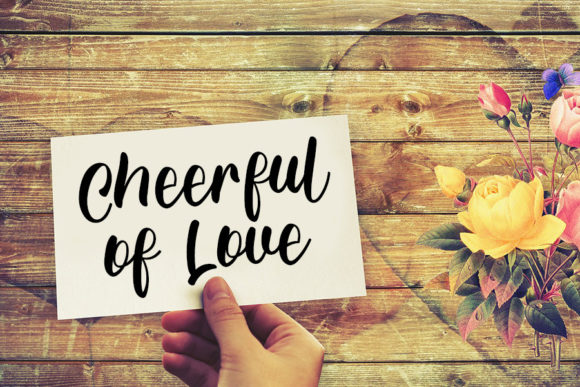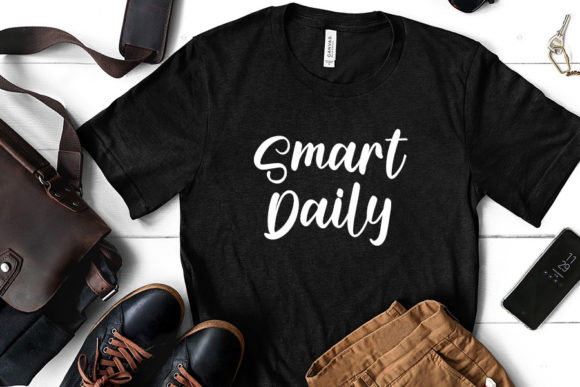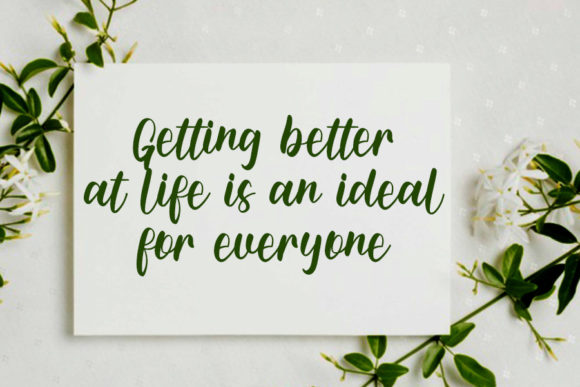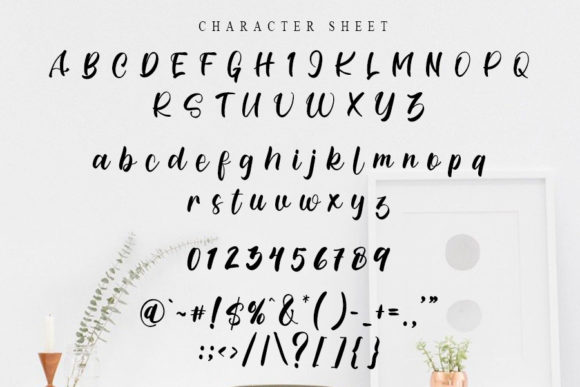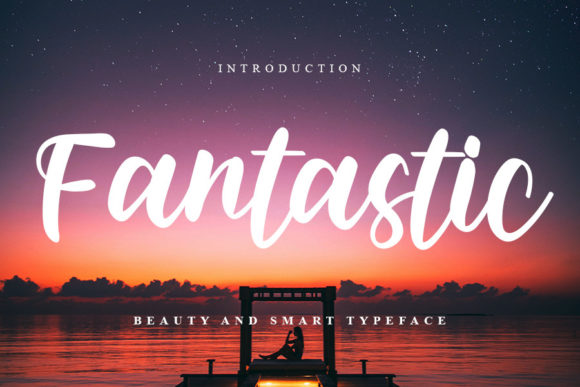
Fantastic Font: Elevate Your Designs with this Stunning Cursive Script
Are you tired of using the same old fonts in your designs? Look no further! Introducing the Fantastic Font, a beautiful cursive script font that is sure to take your creations to the next level. With its unique and well-balanced letters, this font is a masterpiece that will make your designs stand out from the crowd.
What Makes Fantastic Font So Special?
Fantastic Font is a cursive script font that boasts a distinct and well-balanced style. Its letters are carefully crafted to create a sense of fluidity and harmony, making it perfect for a wide range of design applications. Whether you’re creating a logo, brochure, or social media graphic, this font is sure to impress.
One of the key features that sets Fantastic Font apart is its versatility. Its incredibly versatile style allows it to be used in a variety of contexts, from formal and elegant to playful and whimsical. This font is perfect for designers and crafters who want to add a touch of personality to their work.
The Benefits of Using Fantastic Font
So why choose Fantastic Font for your next design project? Here are just a few benefits of using this amazing font:
- Unique and Memorable: Fantastic Font’s distinct letters make it a standout from more traditional fonts. Use it to create designs that are truly unforgettable.
- Versatile: Whether you’re creating a formal or informal design, Fantastic Font is the perfect choice. Its versatile style allows it to be used in a wide range of contexts.
- Elegant and Sophisticated: Fantastic Font’s cursive script style gives it an air of elegance and sophistication. Use it to create designs that exude refinement and poise.
- Easy to Read: Despite its ornate style, Fantastic Font is incredibly easy to read. This makes it perfect for designs that require a clear and concise message.
How to Use Fantastic Font in Your Designs
Ready to start using Fantastic Font in your designs? Here are a few tips to get you started:
- Pair it with a Sans-Serif Font: For a classic look, pair Fantastic Font with a sans-serif font like Arial or Helvetica. This will create a beautiful contrast between the ornate script font and the clean sans-serif font.
- Use it as a Title Font: Fantastic Font is perfect for use as a title font. Its bold and ornate style makes it perfect for headings and titles.
- Add some Flair: Don’t be afraid to add some flair to your designs with Fantastic Font. Use it to create decorative elements, such as swashes and flourishes, to add visual interest to your designs.
Who is Fantastic Font For?
Fantastic Font is perfect for designers and crafters who want to add a touch of elegance and sophistication to their work. Here are a few examples of who might benefit from using this amazing font:
- Graphic Designers: Whether you’re creating logos, brochures, or social media graphics, Fantastic Font is a great addition to your font library.
- Crafters: If you’re a crafter who loves to create handmade cards, gift tags, and other paper crafts, Fantastic Font is a great choice.
- Stationery Designers: If you design stationery, such as wedding invitations, Fantastic Font is a great font to use.
In conclusion, Fantastic Font is a stunning cursive script font that is sure to elevate your designs to the next level. Its unique and well-balanced letters make it a masterpiece that will add a touch of elegance and sophistication to any design. With its versatility and ease of use, Fantastic Font is perfect for designers and crafters who want to create spectacular designs. So why wait? Try Fantastic Font today and see the difference it can make in your designs!